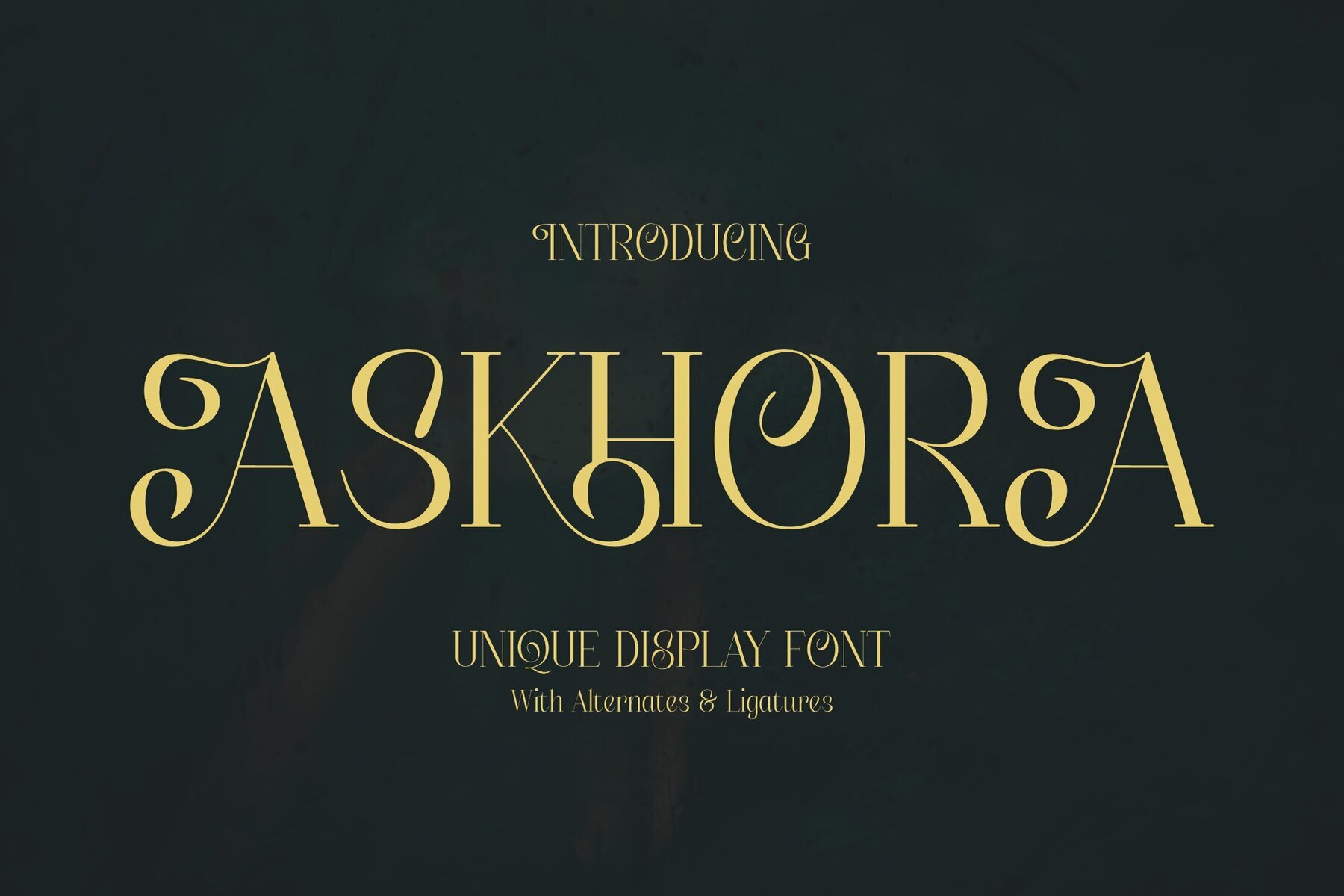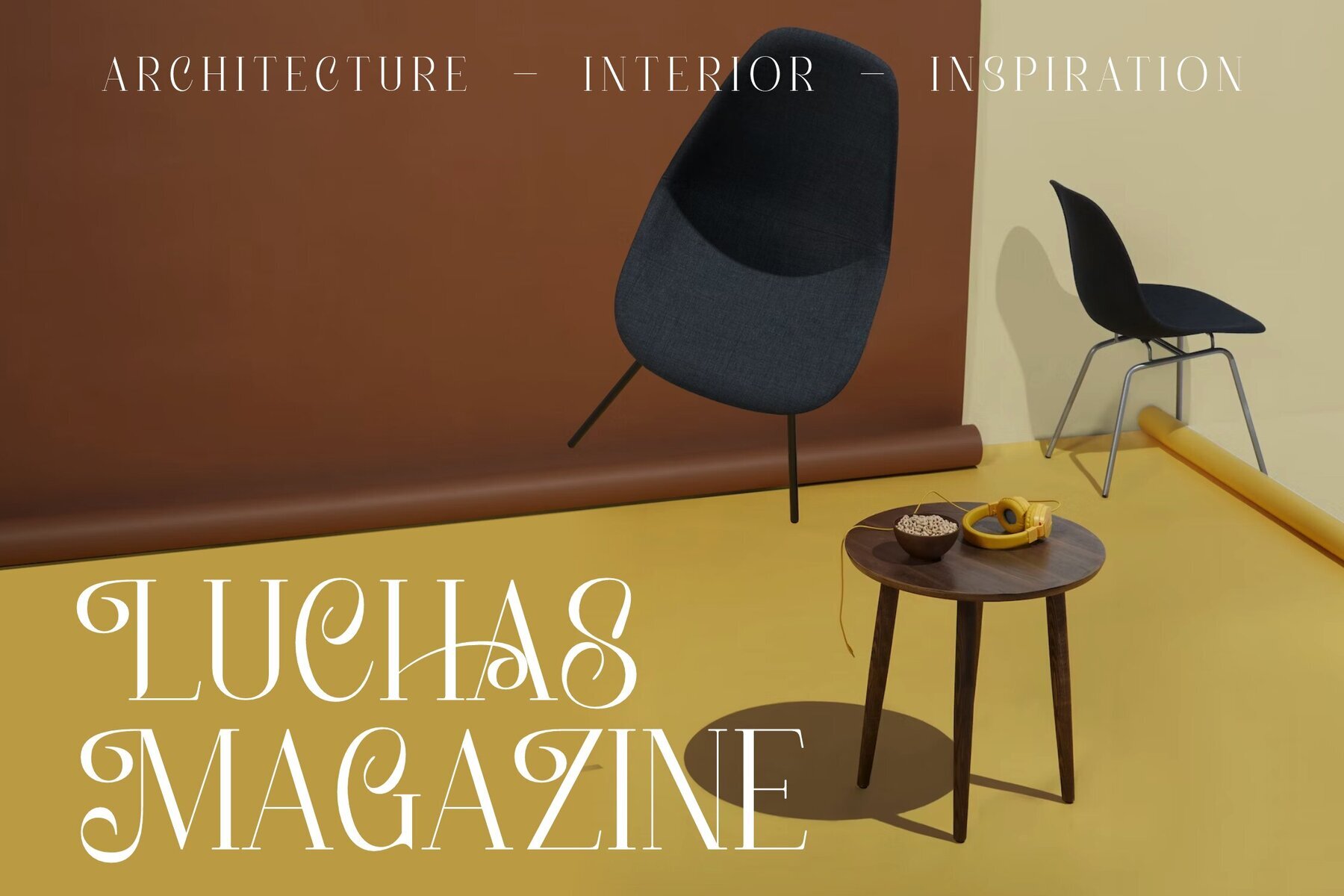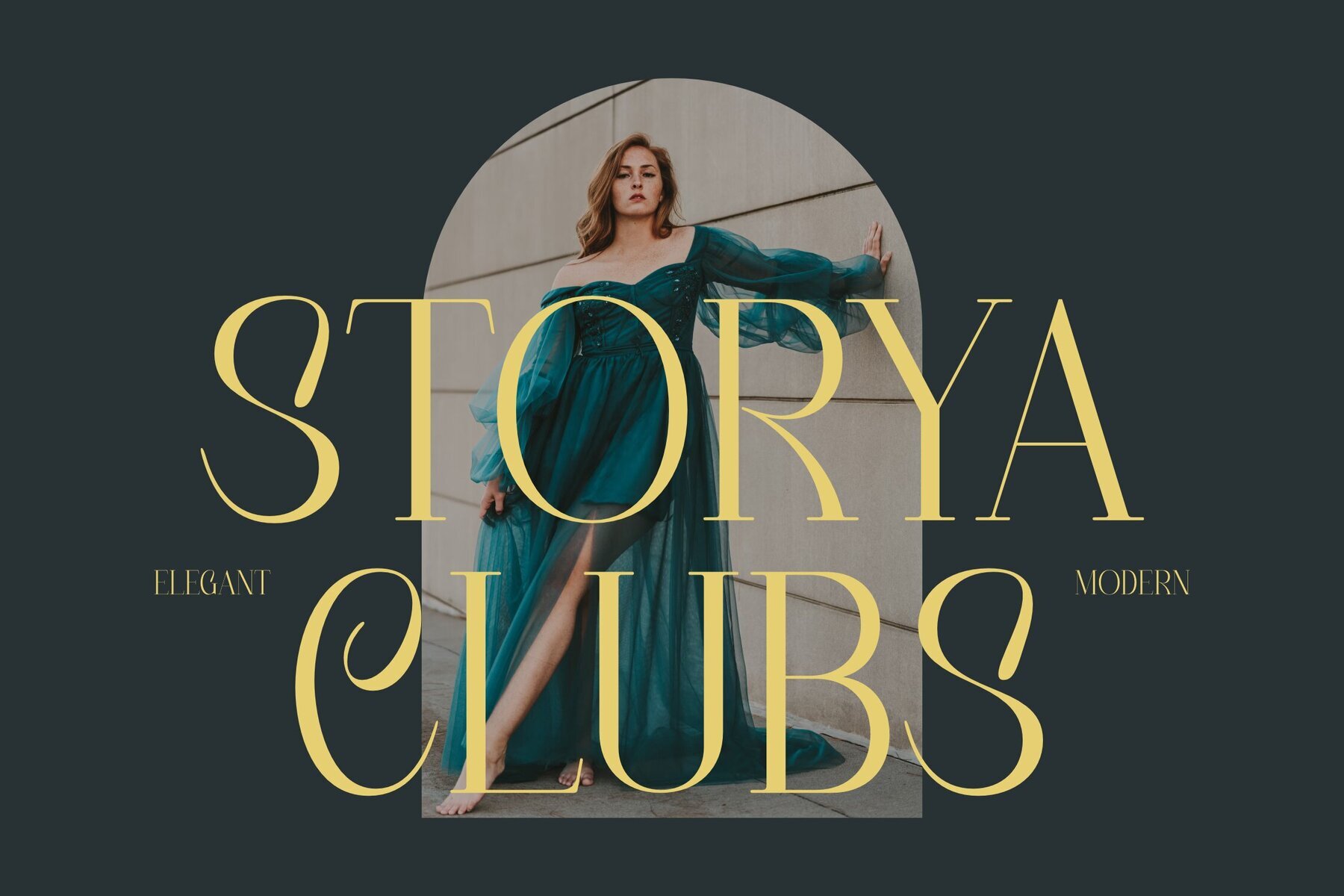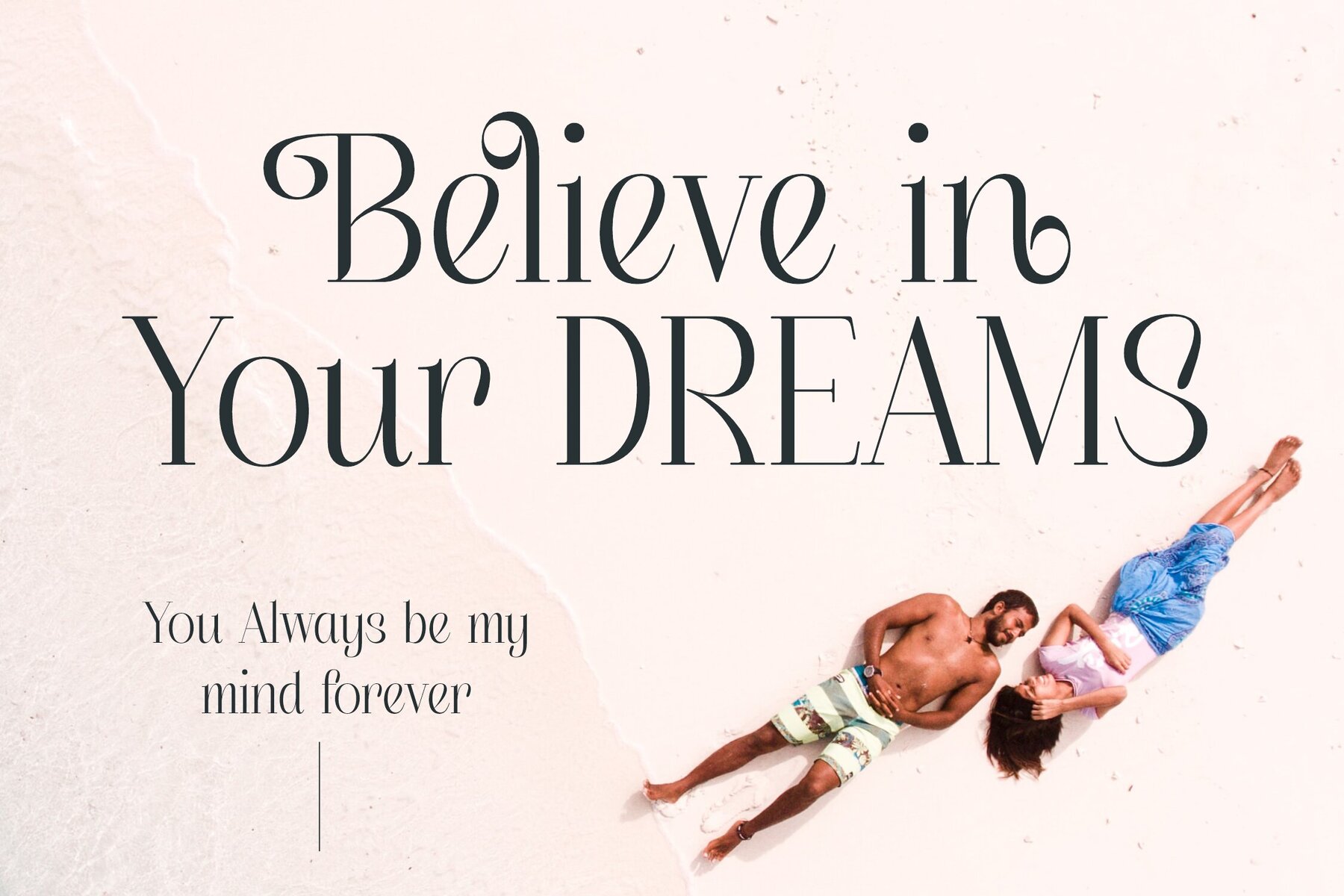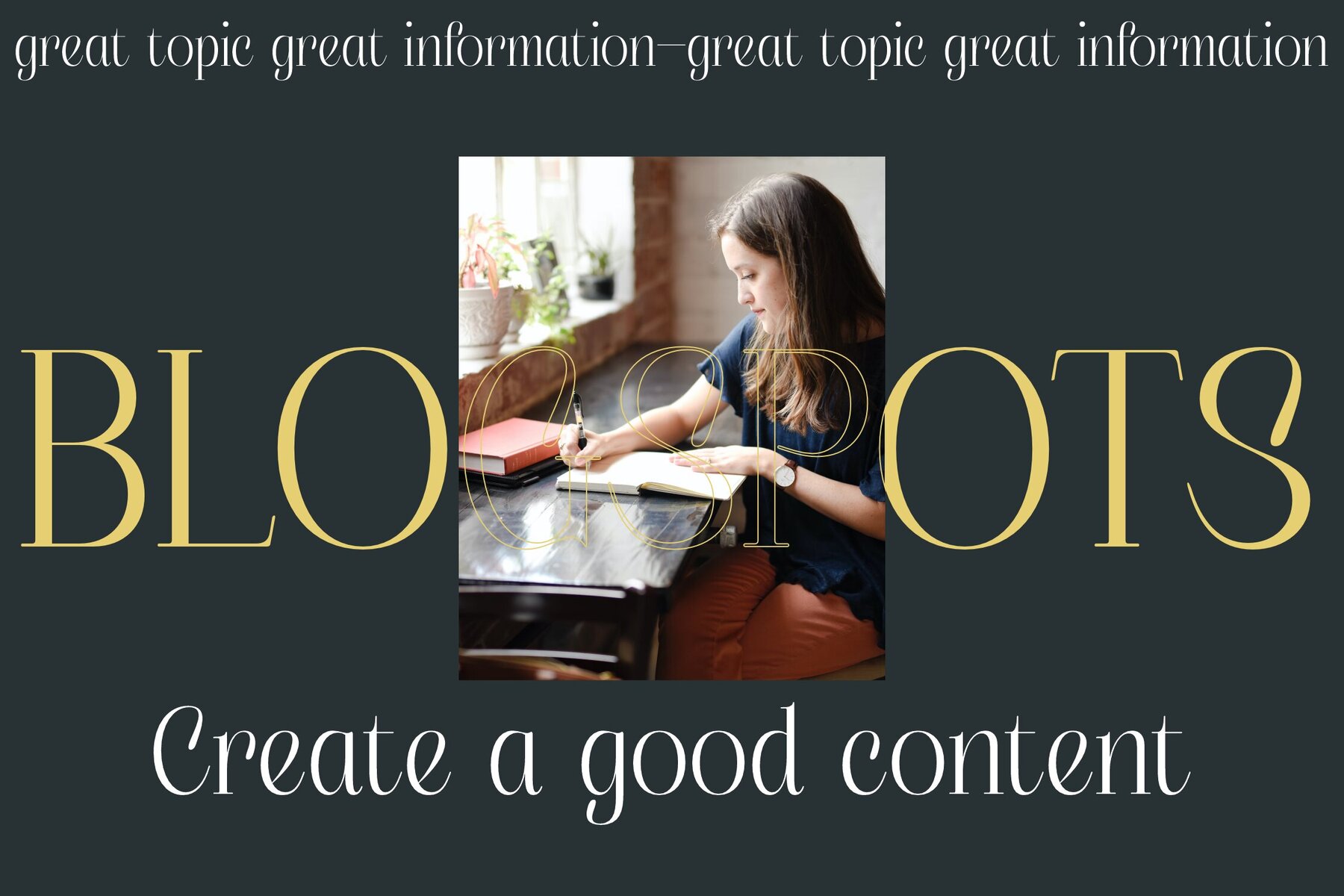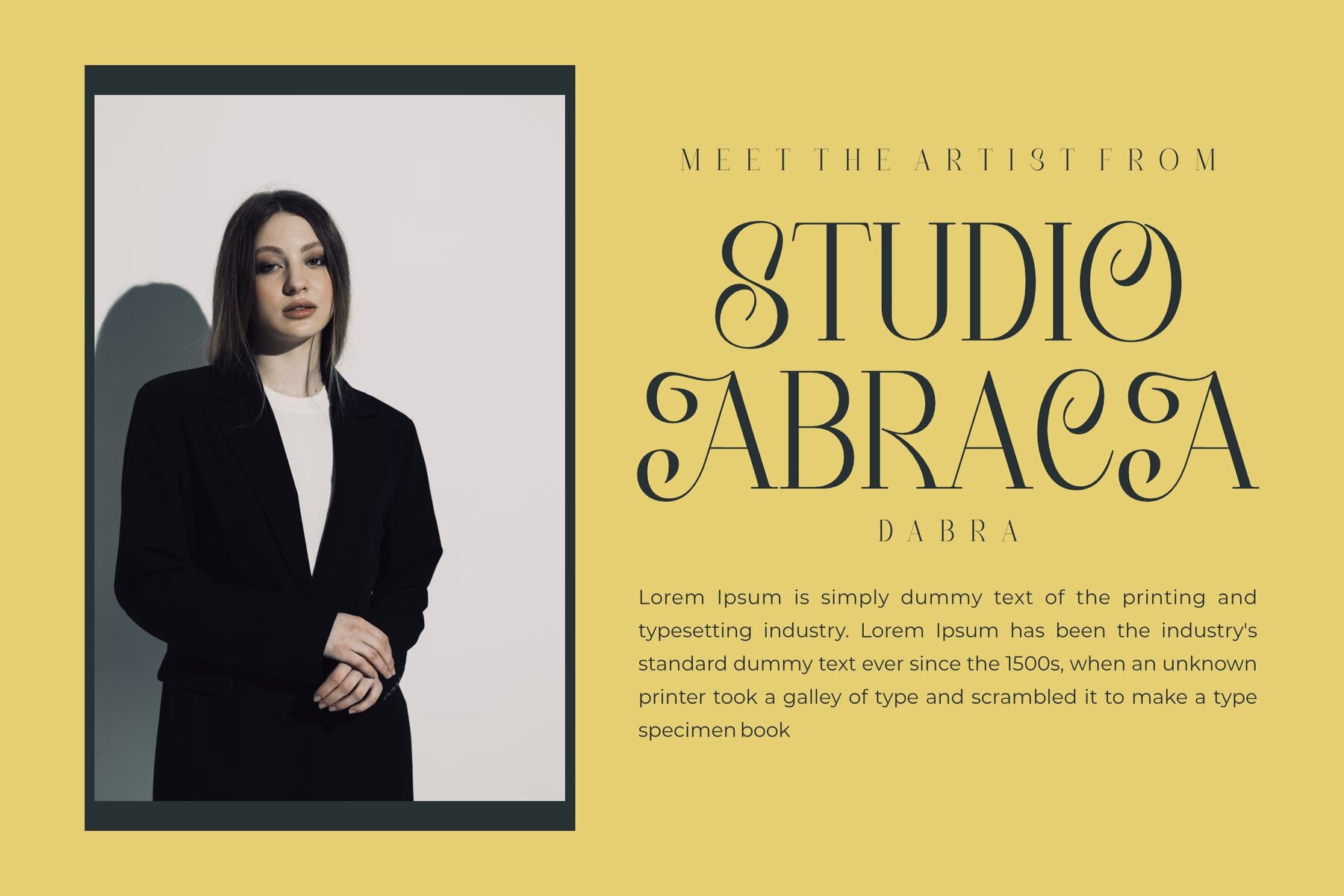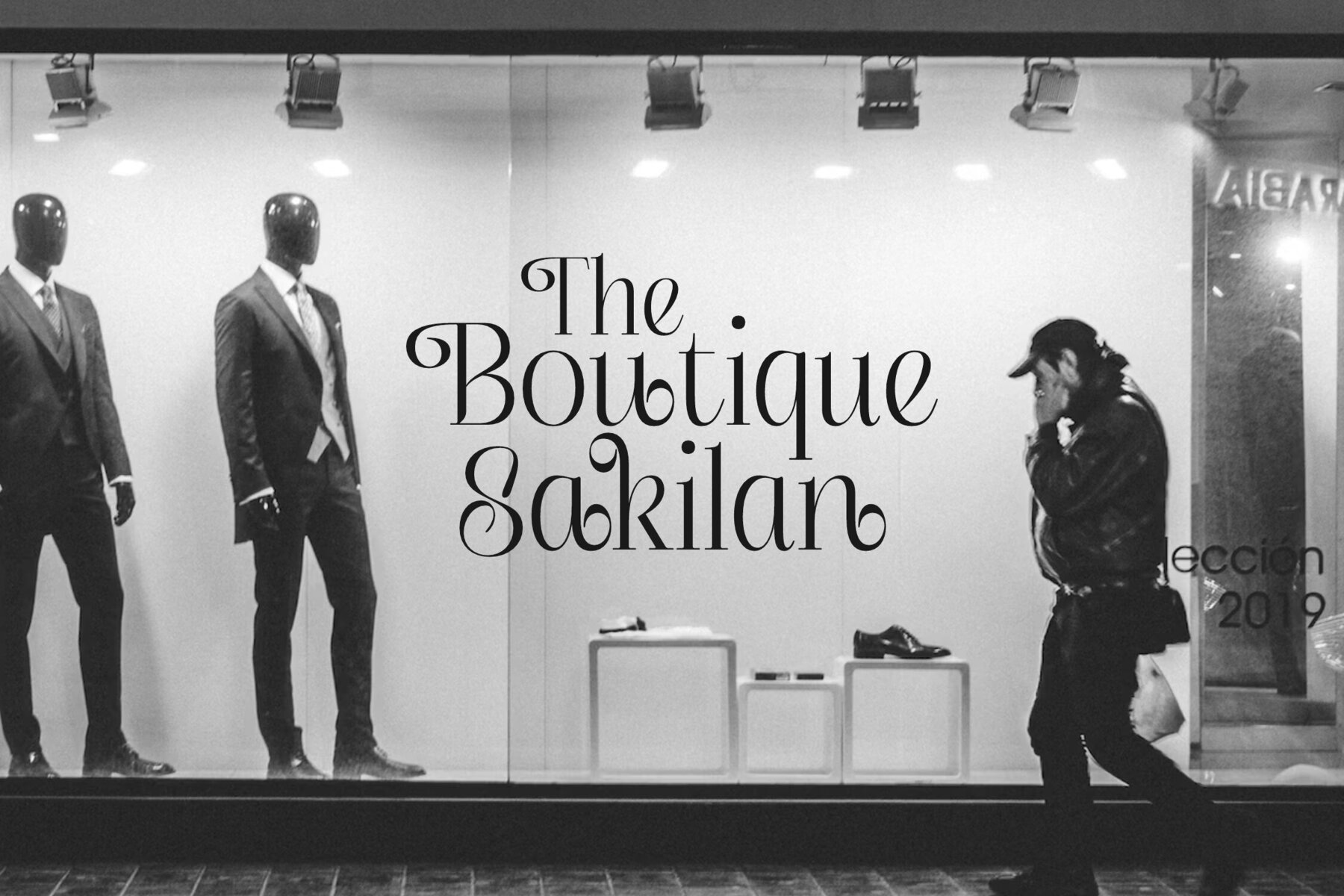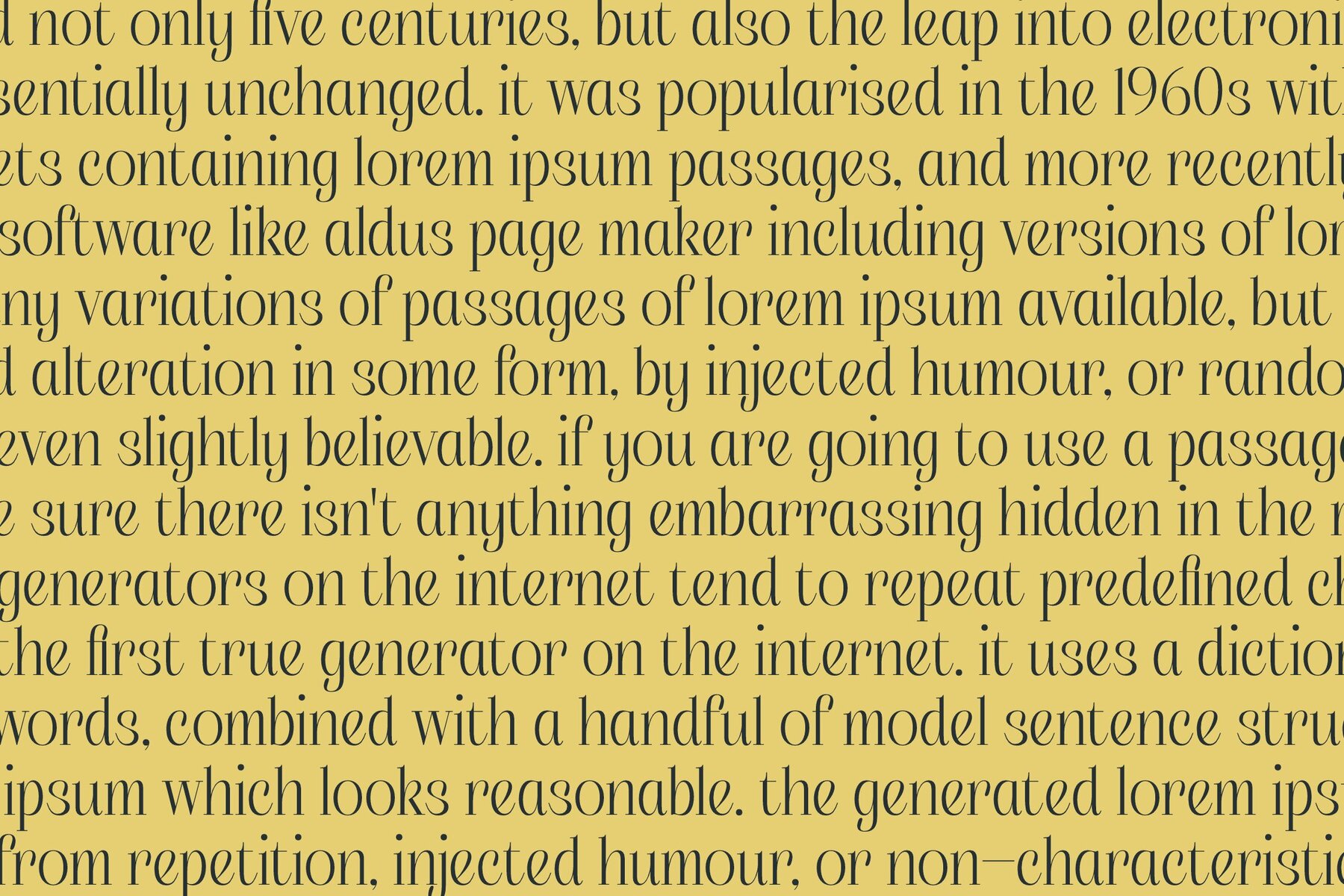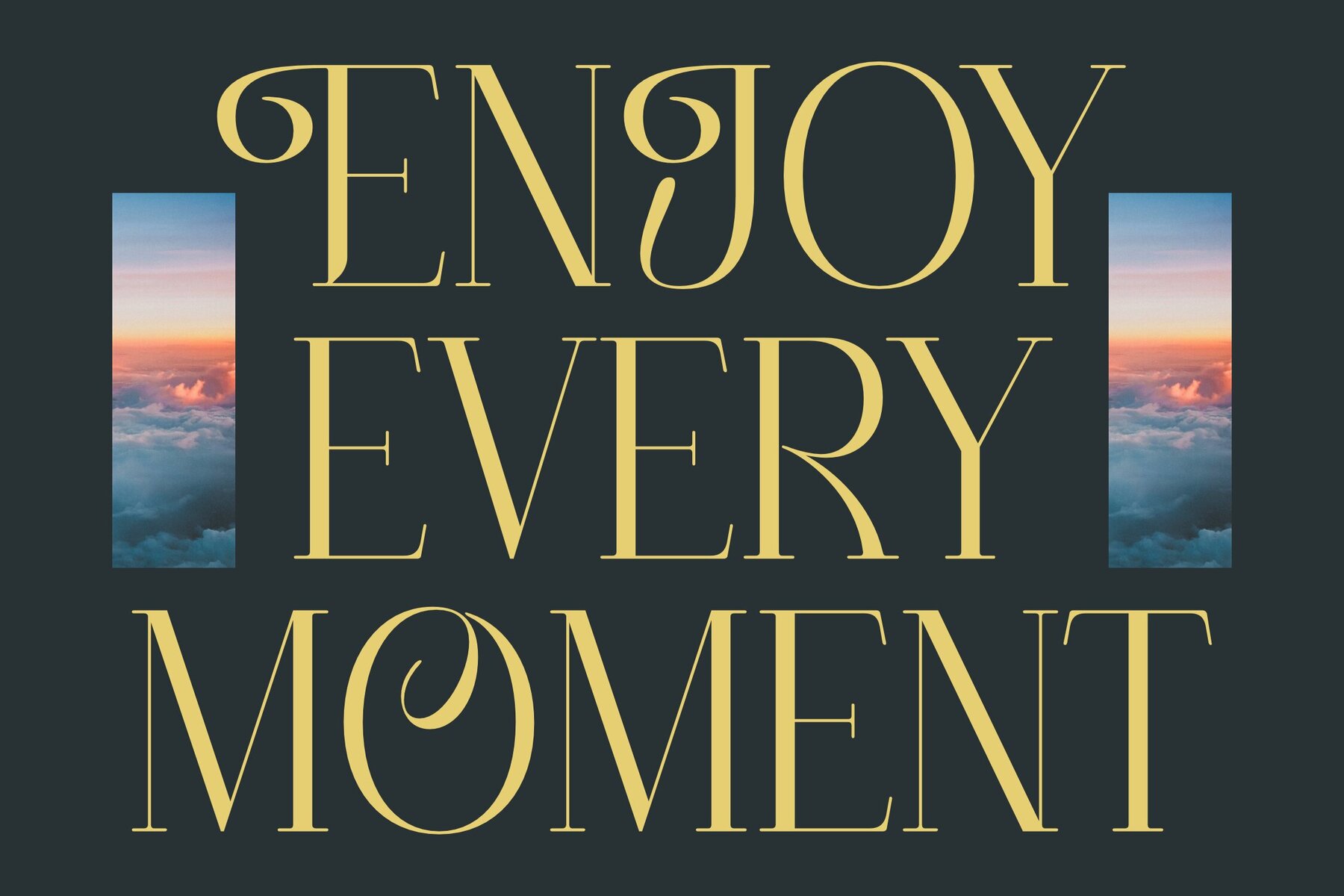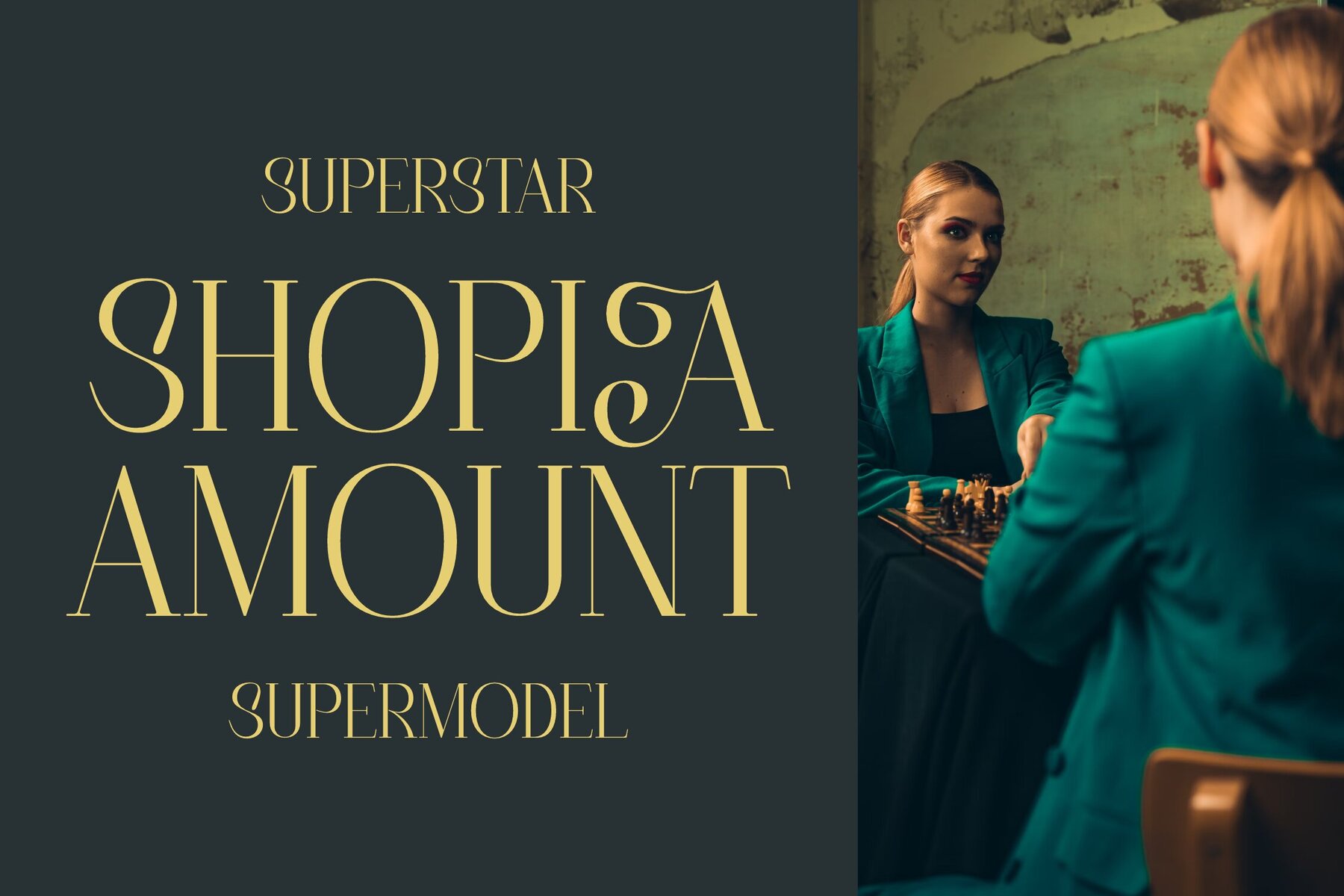
Askhora Font
Explore the elegance of Askhora, a remarkable serif typeface that blends modernity with classic charm. Crafted by Storytype Studio, this font boasts a distinctive style perfect for luxurious logos, captivating book or movie titles, and high-fashion brands. Its versatility shines in magazines, clothing lines, and sophisticated lettering projects, making it an ideal choice for any design endeavor.Askhora Typeface